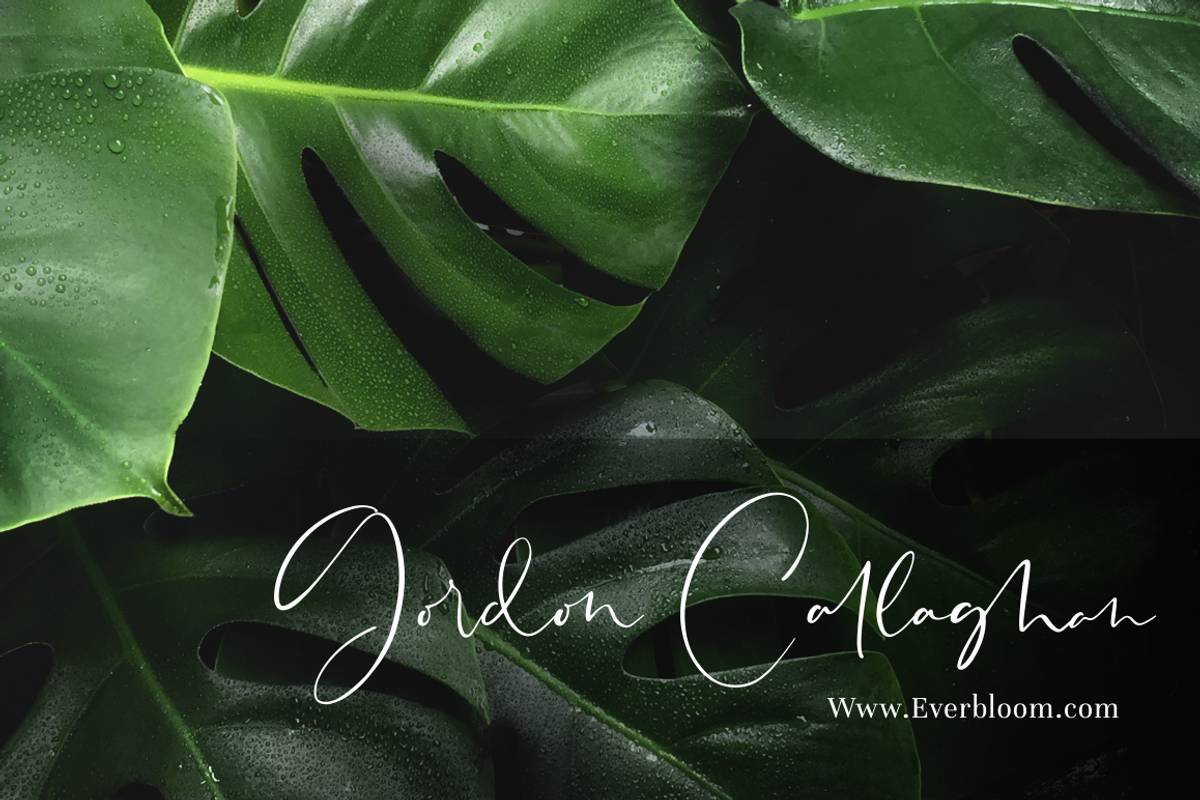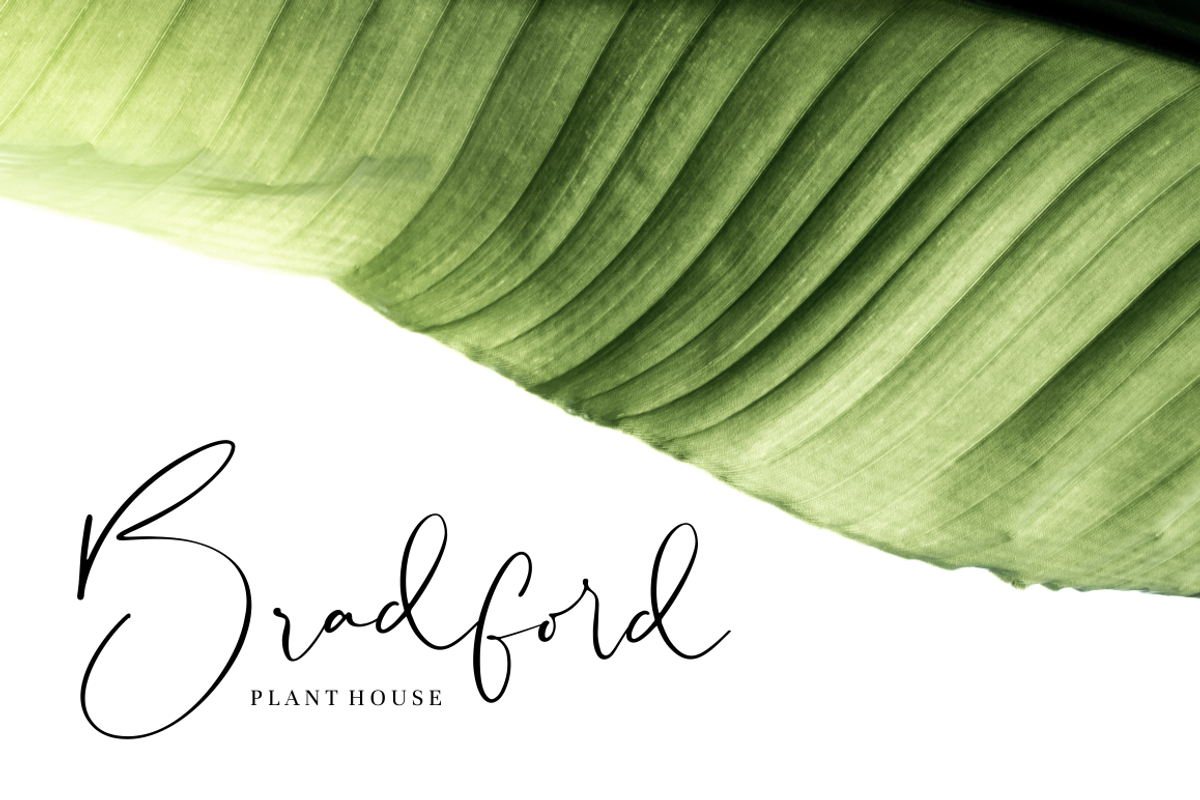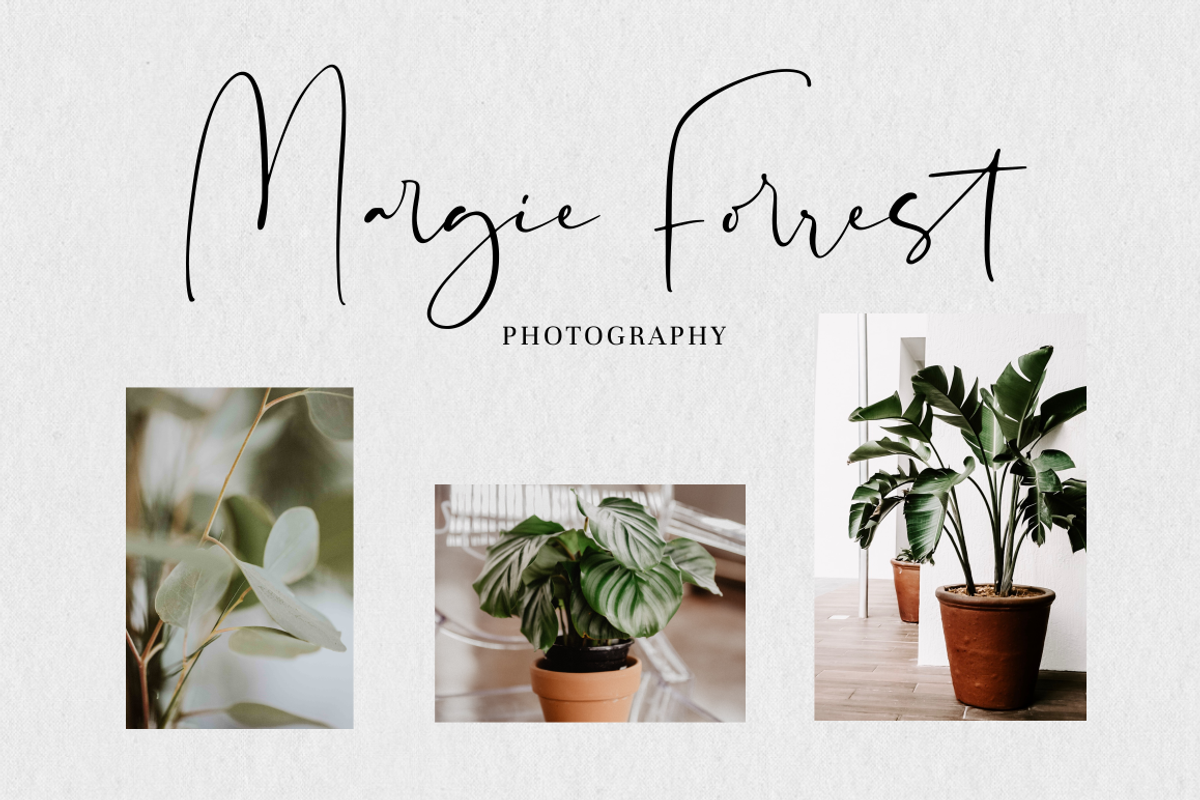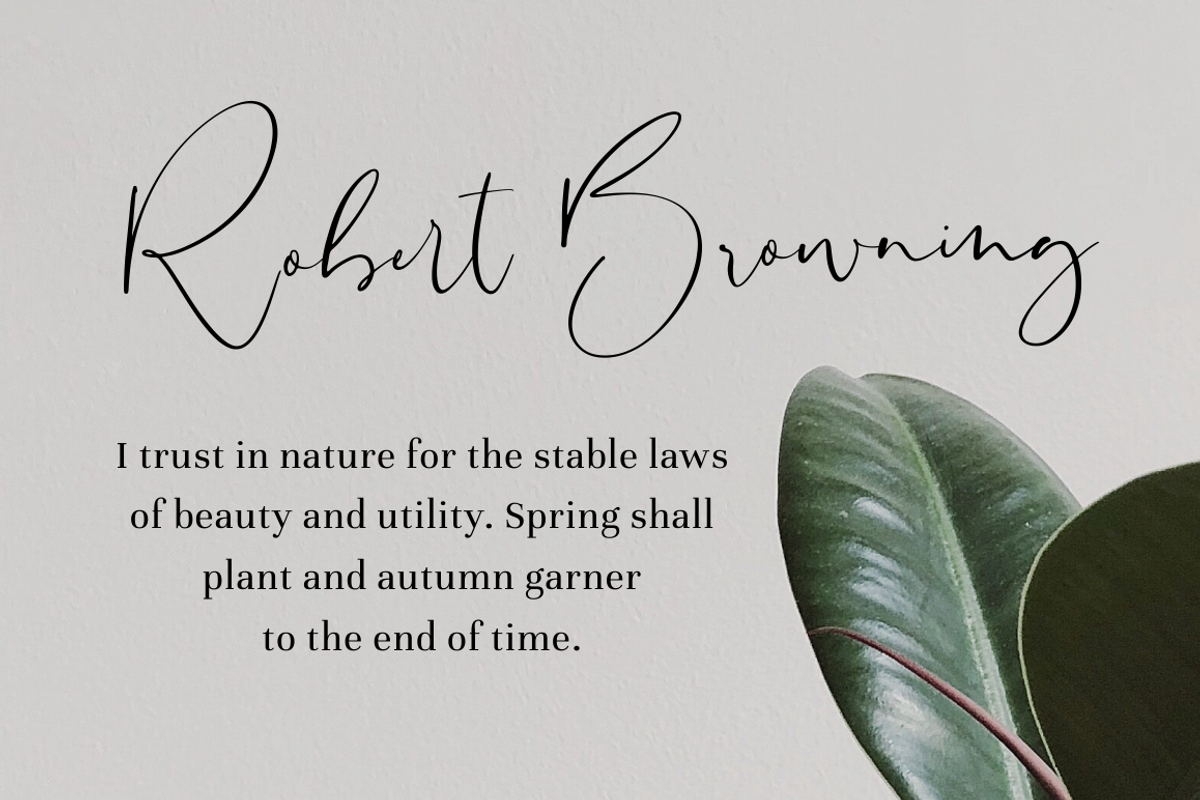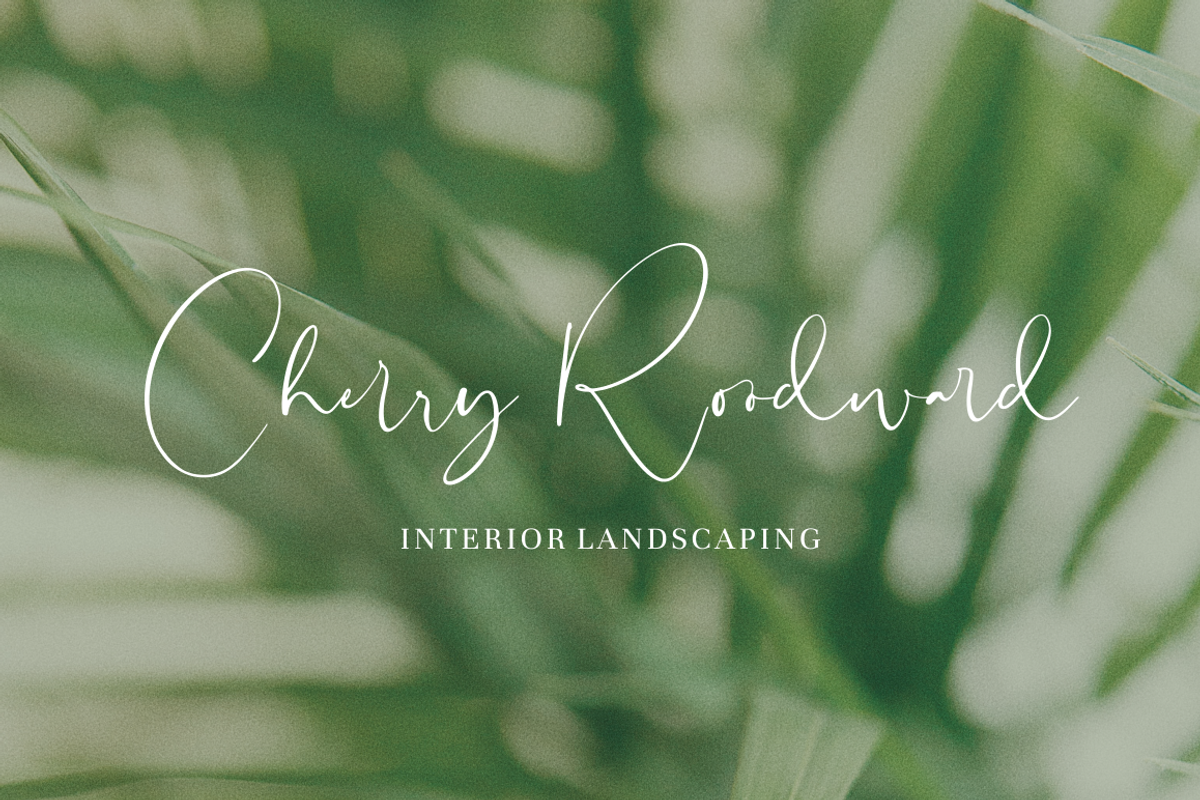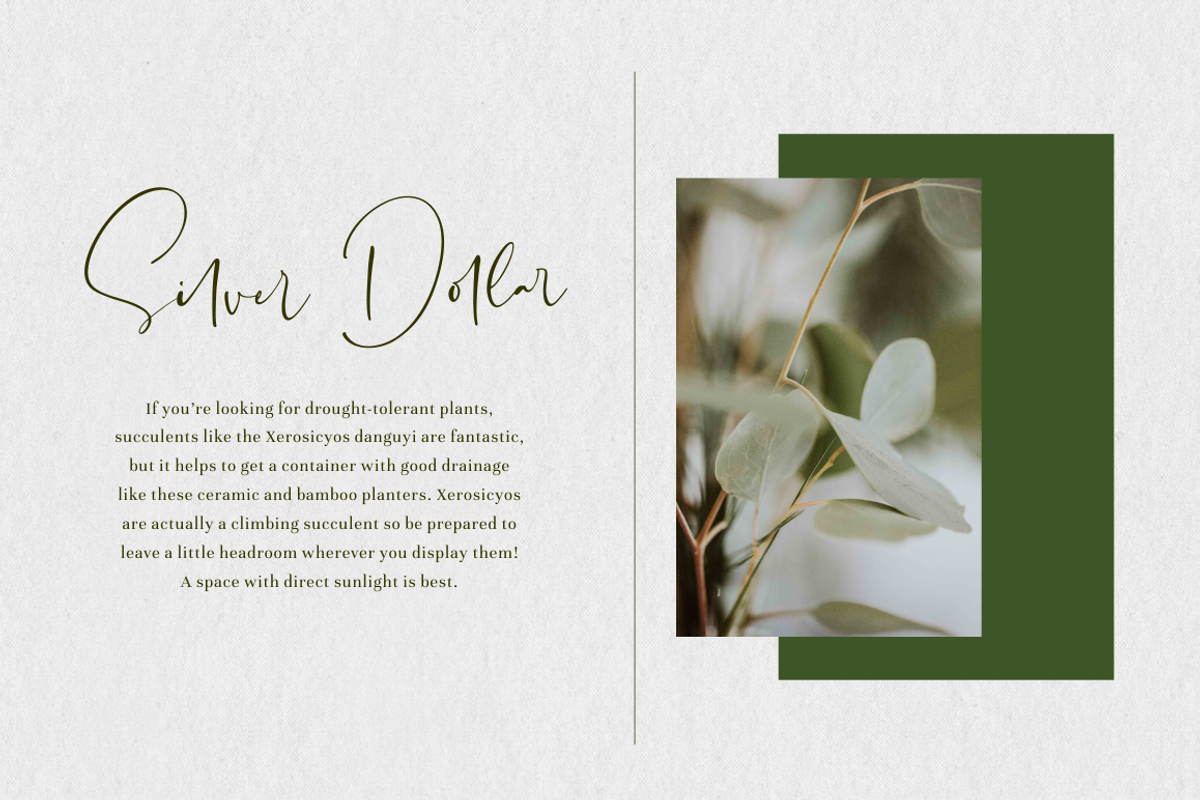
Sheridan - Signature Font
Introducing Sheridan - Signature Font
Sheridan is a beautiful signature font perfect for branding, invitation, stationery, wedding designs, social media posts, advertisements, product packaging, product designs, label, photography, watermark, special events or anything.
- Sheridani comes with full set of uppercase and lowercase letters, 54 beautiful ligatures,multilingual symbols, numerals and punctuation.